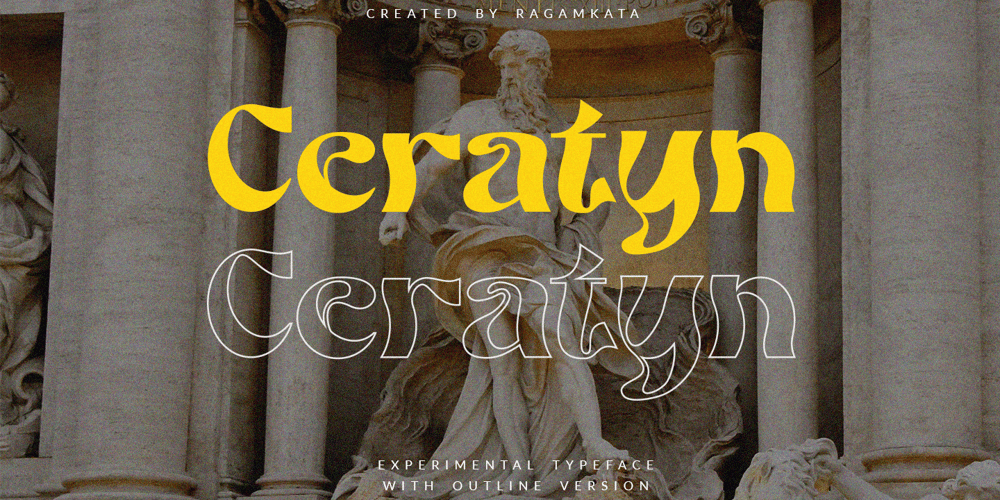
Ceratyn
Ceratyn font
Ceratyn Font Family was designed by Yogiswhara Dio Prakoso Riadi and published by RagamKata. Ceratyn contains 2 styles and family package options. Ceratyn – Experimental TypefaceA Experimental typeface or Psychedelic Font Font from Ragamkata. Get lost in the trippy, mesmerizing world of Gilest: a psychedelic font that bends reality and challenges your perception of typographyand have outline version. This font has several alternatives available in it, suitable for creating logo designs, badges, web fonts, magazines and others. With a very strong font character, it will make your design different and more attractive.